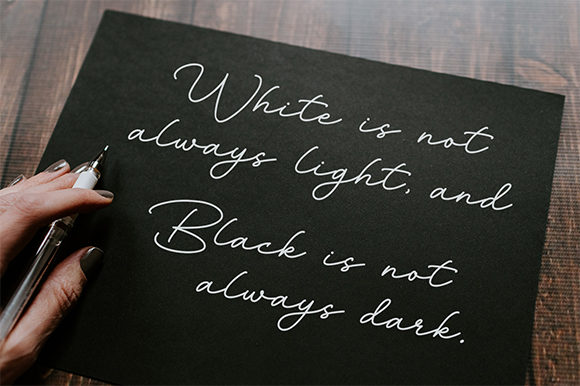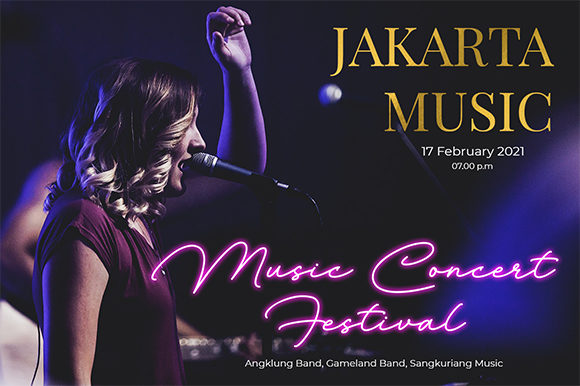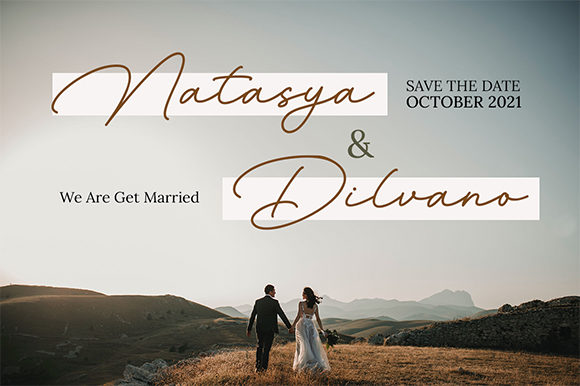
Introduction to Rainbow Saturday Font
Rainbow Saturday is an distinct script font, that features a very refined and classy look.
Not too thin and not too thick, balanced and varied, this font was designed to enhance the beauty of your projects .